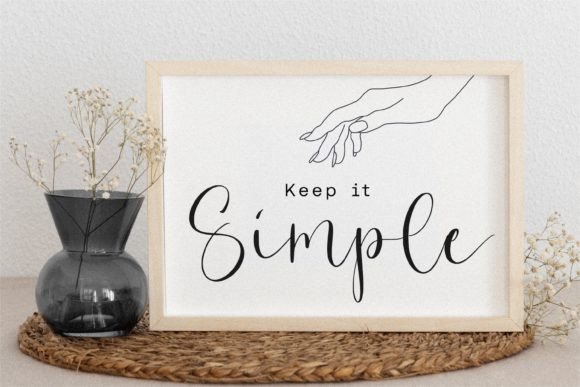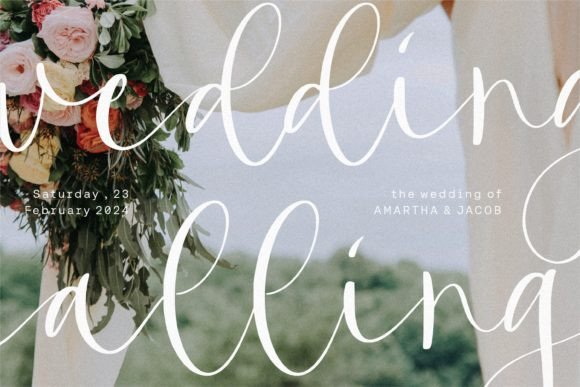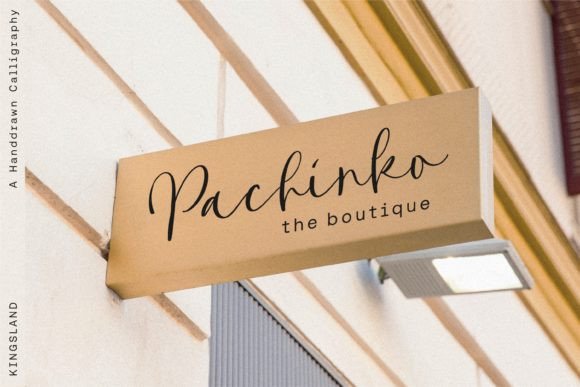
Introduction to Kingsland Font
Kingsland is a handdrawn calligraphy font that’s perfect for adding an elegant touch to your design projects.
With its natural, organic feel and unique character Crafted with care and attention to detail, this font is incredibly versatile and can be used for a range of design projects, including logos, branding, invitations, and more.
Kingsland Font offers exceptional quality and versatility, making it a valuable addition to your design toolkit. Whether you’re creating for personal projects or commercial use, Kingsland Font delivers professional results.